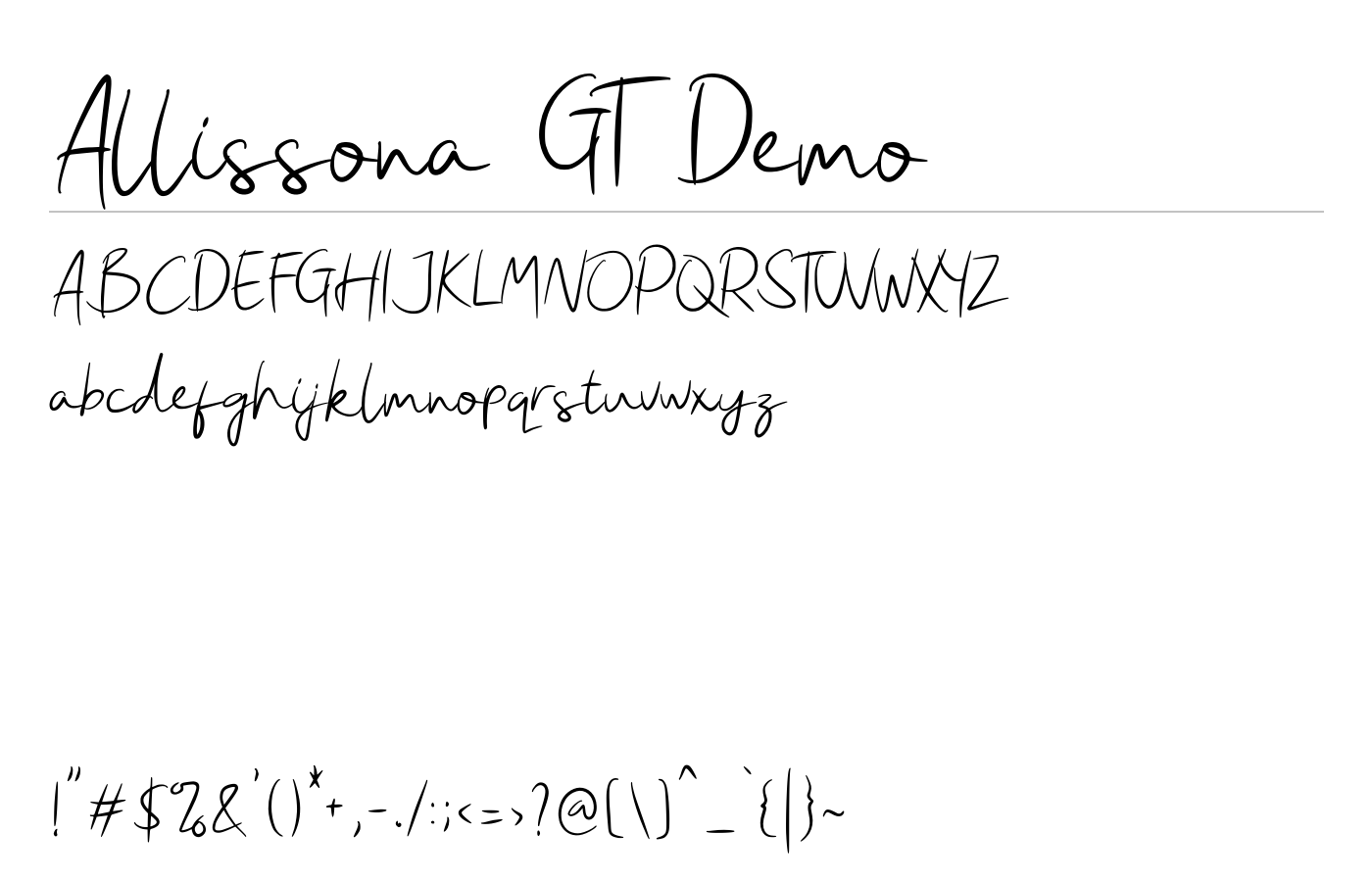
Allissona GT Demo is a delicate, handwritten script font with a light, airy feel and fluid, natural strokes that mimic casual handwriting. Its slender letterforms and playful yet elegant style make it perfect for creative projects, personal branding, and invitations where a personable and approachable look is desired. This font works best in headlines or decorative text, conveying warmth and authenticity with a touch of sophistication.
Allissona GT Demo Font
About Allissona GT Demo Font
| Font family | Allissona GT Demo Font |
| Designer | Gumilang Anggara Ruslan |